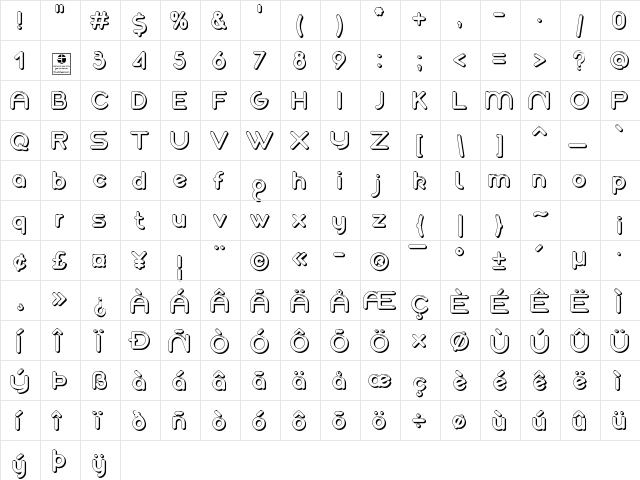
Akaju Outline Regular
| Foundry | StudioTypo |
| Designer | MEHMET ABACI |
Design Context for Akaju Outline Typeface
Akaju Outline brings ornamental detail and strong personality to headlines and identities, where visual impact matters more than quiet functionality.
Font Pairing: Pair with a clean neutral sans-serif for body copy to let Akaju Outline's character lead without overwhelming the composition.
Pro Tip: Use Akaju Outline exclusively at display sizes — it was designed to be seen, not read at length. Let a neutral companion handle body copy.